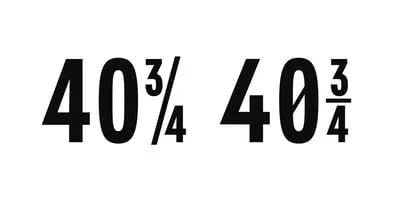
East Font
East Font is perfect for diverse design projects including corporate branding, website headers, business logos, professional presentations, modern signage, tech company materials, startup branding, and contemporary marketing campaigns. This versatile typeface excels in digital interfaces, mobile applications, editorial layouts, architectural firms, consulting businesses, and minimalist design projects that require clean sophistication.
What makes East Font exciting is its perfect balance of modern simplicity and timeless elegance that adapts seamlessly to any design context. The font features clean geometric letterforms with subtle humanist touches that create excellent readability across all media platforms. Its carefully optimized spacing and proportions ensure outstanding performance in both digital and print applications. The refined character design demonstrates contemporary design principles while maintaining classic appeal that never goes out of style.
East Font comes in multiple family variations including thin, light, regular, medium, bold, and black weights. Each style maintains consistent design DNA while offering precise control over visual hierarchy and emphasis. The complete font family includes italic versions, extended character sets, and OpenType features that provide designers with comprehensive typographic flexibility for professional projects.
Whether you're developing corporate identity systems, creating digital platforms, or designing editorial materials, East Font delivers exceptional versatility for modern typography needs. This outstanding typeface combines functional clarity with aesthetic sophistication, making it an essential tool for contemporary designers. Download this remarkable font today and experience the perfect fusion of simplicity and elegance that elevates your design projects with professional excellence and timeless appeal.